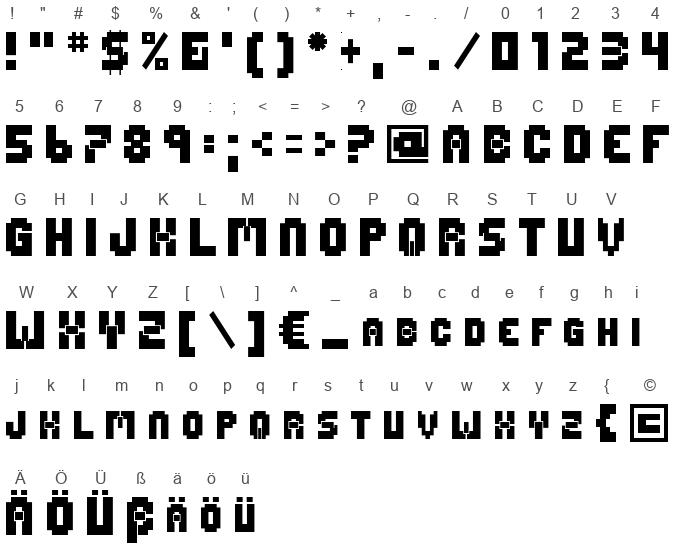
The Mage 1999 font, designed by Dieter Schumacher, is a captivating typeface that transports its audience back to the edge of the 20th and the dawn of the 21st century, encapsulating the essence of a period teeming with digital exploration and the birth of new-age aesthetics. Dieter Schumacher, known for his innovative approach to typeface design, crafted Mage 1999 as a tribute to the era's technological optimism and the burgeoning digital culture, making it not just a font but a historical nod to the time's visual communication style.
Mage 1999 is characterized by its unique blend of sharp and rounded edges, embodying the digital fonts that were prevalent in video games, websites, and early graphical user interfaces during the late '90s. Its design walks a fine line between retro and futuristic, offering a visual narrative that is both nostalgic and forward-looking. The font's geometric shapes and thoughtful use of negative space evoke a sense of digital mystique, making it particularly effective for projects aimed at invoking a sense of technological intrigue or retro-futurism.
Despite its distinctly vintage vibe, Mage 1999 remains versatile and adaptable to various design applications, from graphic design projects and tech-themed presentations to digital art and retro gaming platforms. Its readability, despite its decorative nature, ensures that it can be used in both titles and text-heavy projects where a touch of nostalgia or a nod to the digital age is desired. In essence, Mage 1999 by Dieter Schumacher is more than just a typeface; it's a time capsule from a pivotal moment in digital culture, imbued with the spirit of exploration and innovation that defined the close of the 20th century.
Mage 1999